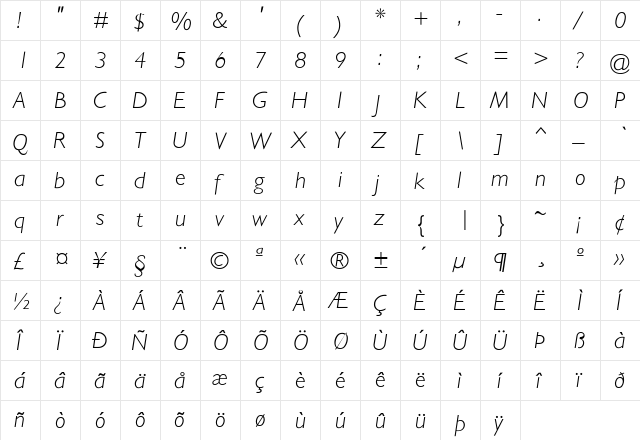
GarrisonSans-LightItalic Regular Font Preview
GarrisonSans-LightItalic Regular
GarrisonSans-LightItalic Regular Font Details
Design Context for GarrisonSans-LightItalic Typeface
GarrisonSans-LightItalic is a composed and adaptable typeface that performs quietly and consistently across a wide range of design contexts. Its italic angle brings a sense of urgency and motion to the letterforms. Its slender proportions lend an understated elegance to any composition.
Pro Tip: Use GarrisonSans-LightItalic for emphasis, pull quotes, and subheadings where its slanted energy can add rhythm to the layout.